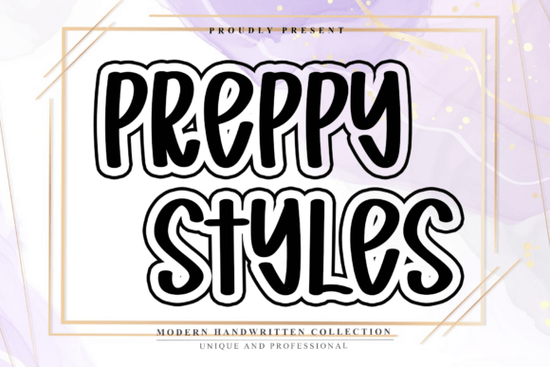
If you're looking for a font that brings instant energy and personality to your designs, Preppy Styles Font is worth a closer look. With its bold, chunky bubble letters and playful outline, it captures a cheerful, youthful vibe that works especially well for projects aimed at teens, kids, or anyone who loves upbeat, handcrafted aesthetics. Whether you’re designing stickers, t-shirts, social media posts, or branding for a fun small business, this handwritten-style display font adds character without needing extra embellishments.
What makes Preppy Styles stand out from other display fonts?
Unlike many clean or minimalist fonts, Preppy Styles leans into exaggeration thick strokes, rounded forms, and that eye-catching double-line outline give it a “loud” presence that still feels friendly. It’s not trying to be subtle; it’s built to grab attention in a positive, approachable way. That makes it ideal for:
- Print-on-demand products like mugs, tote bags, and phone cases where bold typography sells
- Social media graphics that need to pop in crowded feeds
- Youth-focused apparel or school spirit wear
- Craft projects such as vinyl decals, greeting cards, or scrapbook titles
Because it’s a display font, it’s best used for headlines, logos, or short phrases not body text. But within that role, it delivers consistent charm and marketability.
How does it compare to similar handwritten or outlined fonts?
Each of these fonts serves a different mood, but they share one thing: strong visual identity. Like Preppy Styles Font, they’re designed to make your message memorable at a glance.
Who should use this font and when?
Preppy Styles shines when your audience values fun over formality. Think summer camps, birthday parties, snack brands, student clubs, or boutique fitness studios with a lively brand voice. It’s less suited for corporate reports or luxury branding, but that’s by design it knows exactly what it is and who it’s for.
For crafters using Cricut or Silhouette machines, the thick strokes cut cleanly and hold up well on layered vinyl projects. Print-on-demand sellers will find it converts well on mockups because it reads clearly even at small sizes (as long as it’s used for short words). And designers building Instagram story templates or Canva kits can rely on its consistency across platforms.
Tips for using Preppy Styles effectively
To get the most out of this font, keep these practical ideas in mind:
- Pair it with simple sans-serifs. Let Preppy Styles be the star use clean fonts like Montserrat or Lato for supporting text.
- Avoid overcrowding. Its boldness needs breathing room. Use generous spacing and minimal background elements.
- Experiment with color fills. The outline creates a natural “frame,” so try contrasting inner and outer colors for extra pop.
- Stick to uppercase. The font’s personality really comes through in all-caps settings, which also improve legibility.
And remember: while it’s energetic, it’s not chaotic. The letterforms are carefully crafted for balance, so even at large sizes, it maintains readability.
Ready to try it?
If your next project calls for joy, confidence, and a hand-drawn feel with commercial reliability, Preppy Styles Font could be your go-to. It’s available through Creative Fabrica with a commercial-use license, making it safe for client work and product sales.
- Is my audience young, playful, or trend-conscious?
- Do I need a headline font not body copy?
- Will the design benefit from bold, outlined lettering?
- Am I pairing it with neutral or complementary supporting fonts?